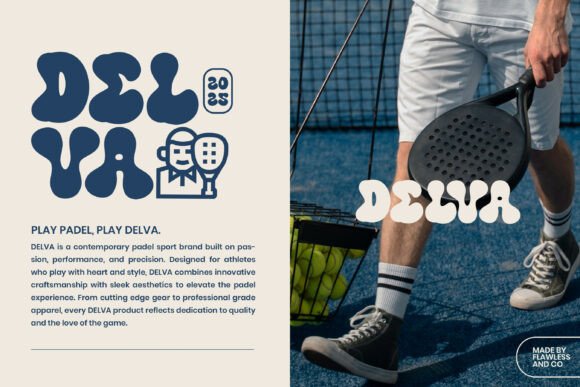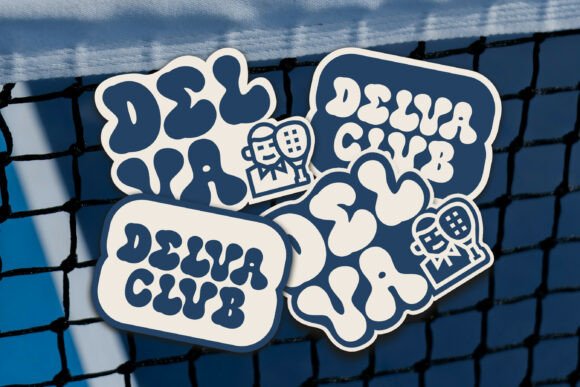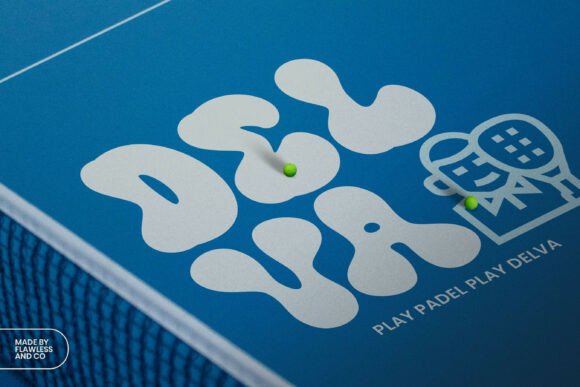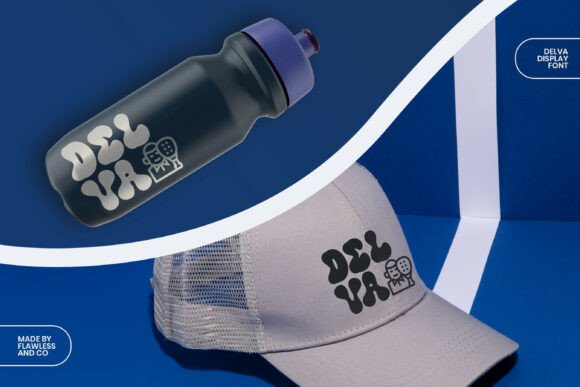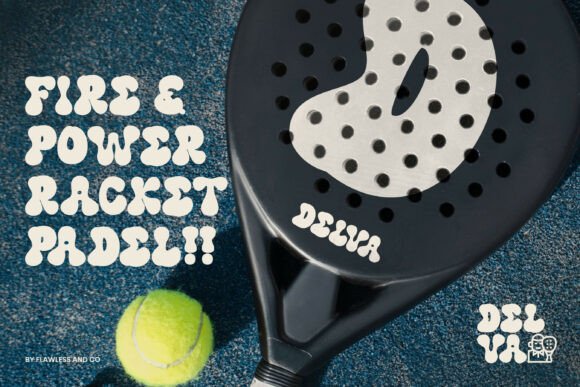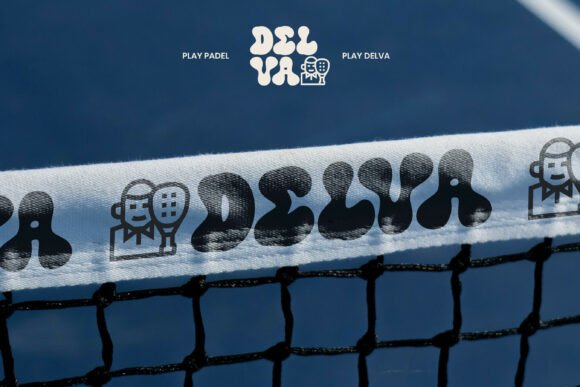
Introducing Delva Font: The Ultimate Display Typeface for Bold Designs
Are you a designer looking for a font that can add a burst of energy to your designs? Look no further than Delva Font, a bold and expressive display typeface that’s perfect for creating lively, creative, and modern vintage-inspired visuals. In this article, we’ll dive into the world of Delva Font, exploring its unique features, design inspirations, and uses, as well as provide tips and ideas for incorporating it into your design projects.
A Playful Retro Aesthetic with a Modern Twist
Delva Font is inspired by playful retro aesthetics, but with a modern twist. The font combines organic shapes with smooth curves, creating a fun and distinctive personality that stands out in any context. The result is a typeface that’s both nostalgic and fresh, perfect for designers who want to convey a sense of creativity, playfulness, and modernity.
Key Features of Delva Font
So, what makes Delva Font so special? Here are some of its key features:
- Bold and Expressive: Delva Font is a bold and expressive display typeface that’s designed to make a statement.
- Organic Shapes: The font features organic shapes that give it a playful, hand-drawn feel.
- Smooth Curves: Delva Font’s smooth curves add a touch of sophistication and elegance to its overall design.
- Modern Vintage Vibe: The font’s unique blend of retro and modern elements creates a distinctive, modern vintage vibe.
Delva Font is a versatile typeface that can be used in a wide range of design projects, including:
- Branding: Use Delva Font to create bold, eye-catching logos and brand identities that stand out from the crowd.
- Posters: Delva Font is perfect for creating attention-grabbing posters and flyers that demand attention.
- Packaging: Add a touch of personality to your product packaging with Delva Font’s unique, hand-drawn aesthetic.
- Sports Visuals: Delva Font’s bold, energetic design makes it perfect for sports-related branding, posters, and graphics.
- Social Media Graphics: Use Delva Font to create engaging, shareable social media graphics that showcase your brand’s personality.
Tips for Using Delva Font
Here are some tips for getting the most out of Delva Font:
- Use it as a Display Font: Delva Font is designed to be used as a display font, so use it to create bold, eye-catching headings and titles.
- Experiment with Colors: Delva Font looks great in a variety of colors, so don’t be afraid to experiment and find the perfect hue for your design.
- Pair it with Other Fonts: Delva Font pairs well with a range of other fonts, so try combining it with different typefaces to create a unique visual identity.
In conclusion, Delva Font is a bold and expressive display typeface that’s perfect for designers who want to add a burst of energy to their designs. With its unique blend of organic shapes, smooth curves, and modern vintage vibe, Delva Font is ideal for a wide range of design projects, from branding and posters to packaging and social media graphics. So why not give Delva Font a try and see how it can elevate your designs to the next level?